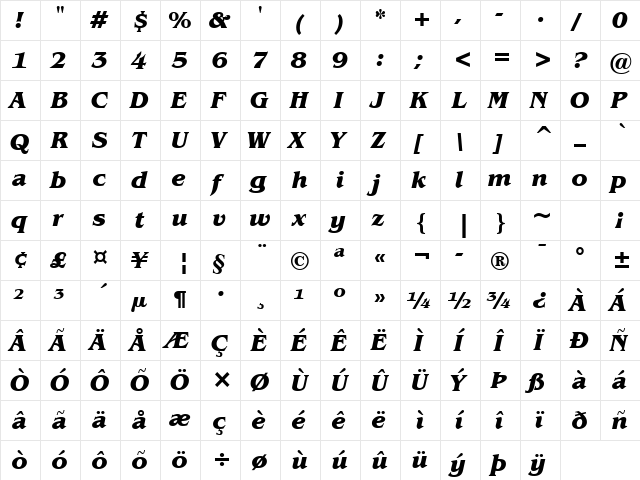
Benguiat Bk BT Bold Italic Font Preview
Benguiat Bk BT Bold Italic
Design Context for Benguiat Bk BT Typeface
Benguiat Bk BT is a composed and adaptable typeface that performs quietly and consistently across a wide range of design contexts. The dynamic lean of this cut emphasises speed and emphasis in any layout. The heavy weight commands attention and anchors typographic hierarchies.
Pro Tip: Try Benguiat Bk BT for annotation and caption copy alongside an upright companion — the contrast in angle creates a dynamic but ordered typographic system.